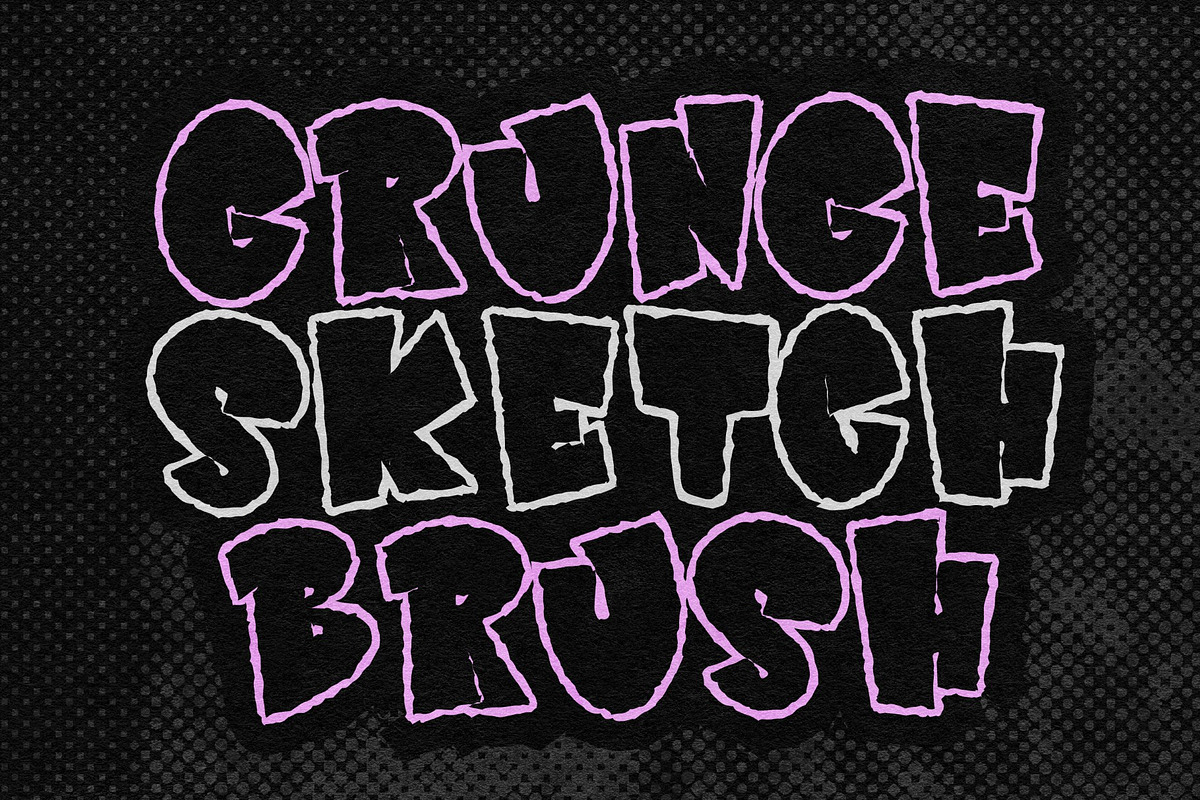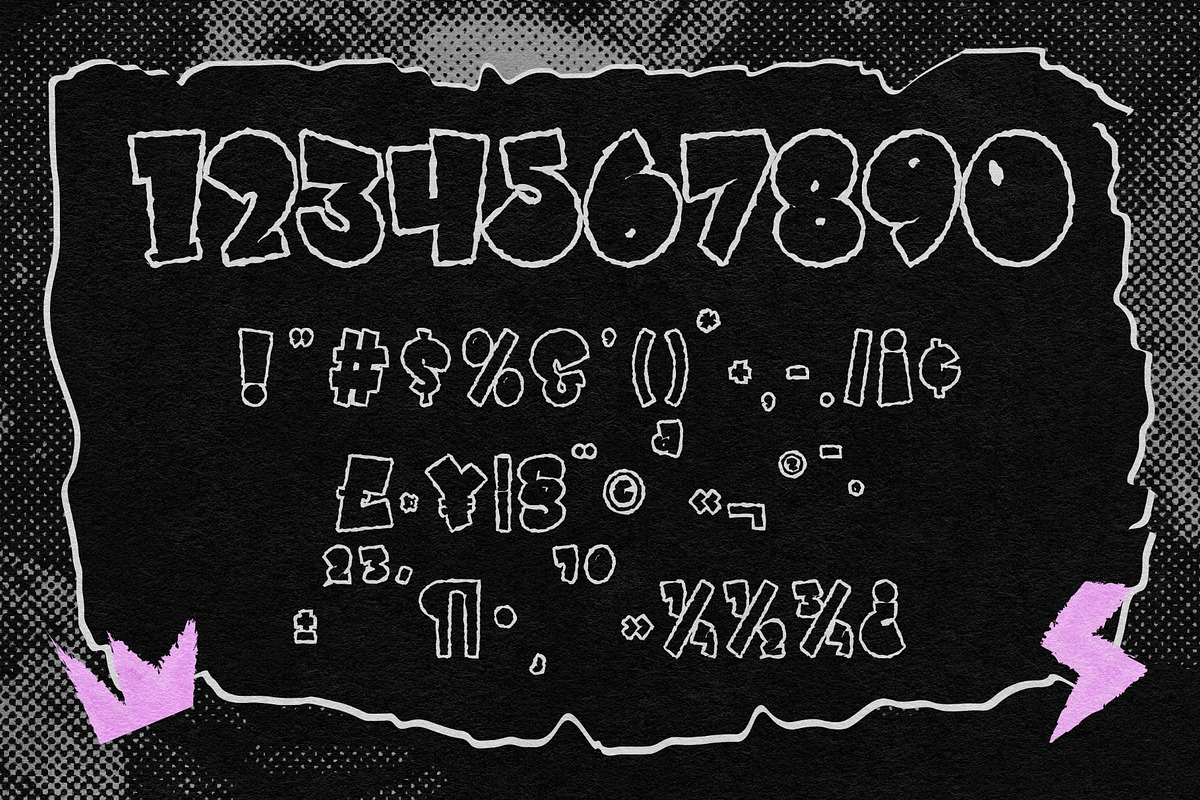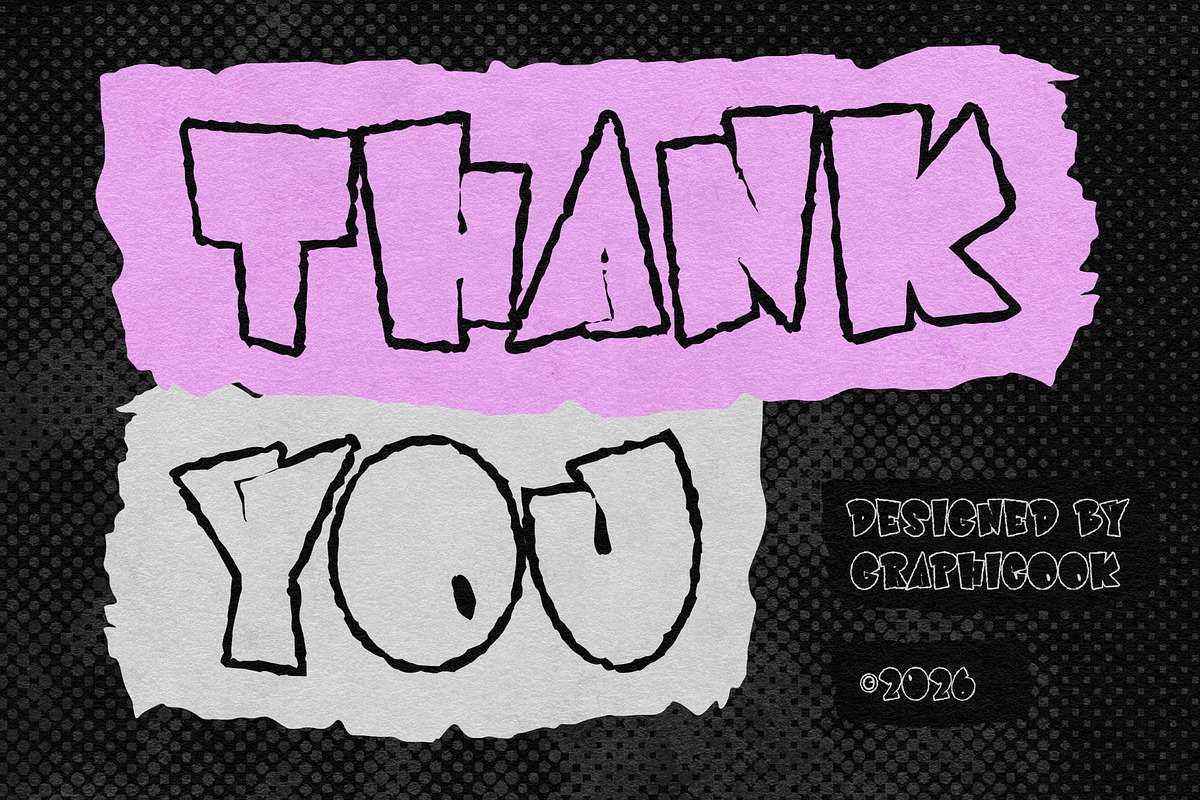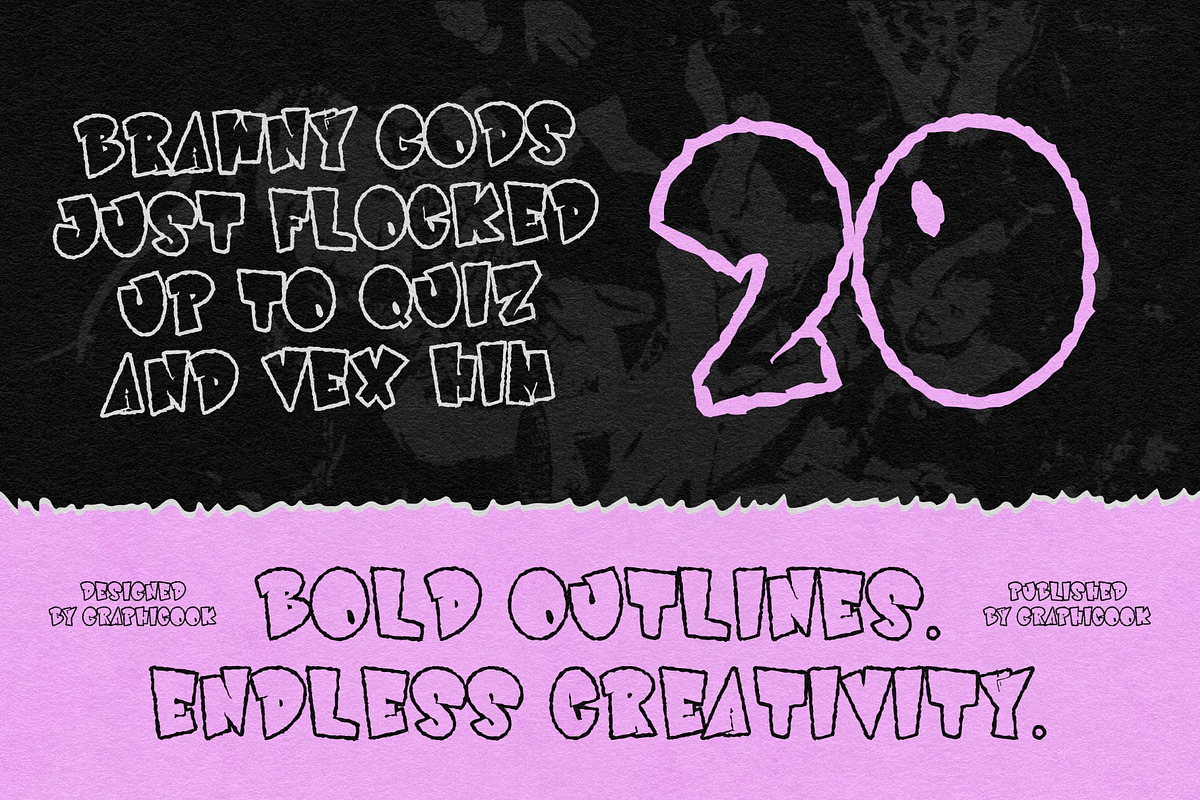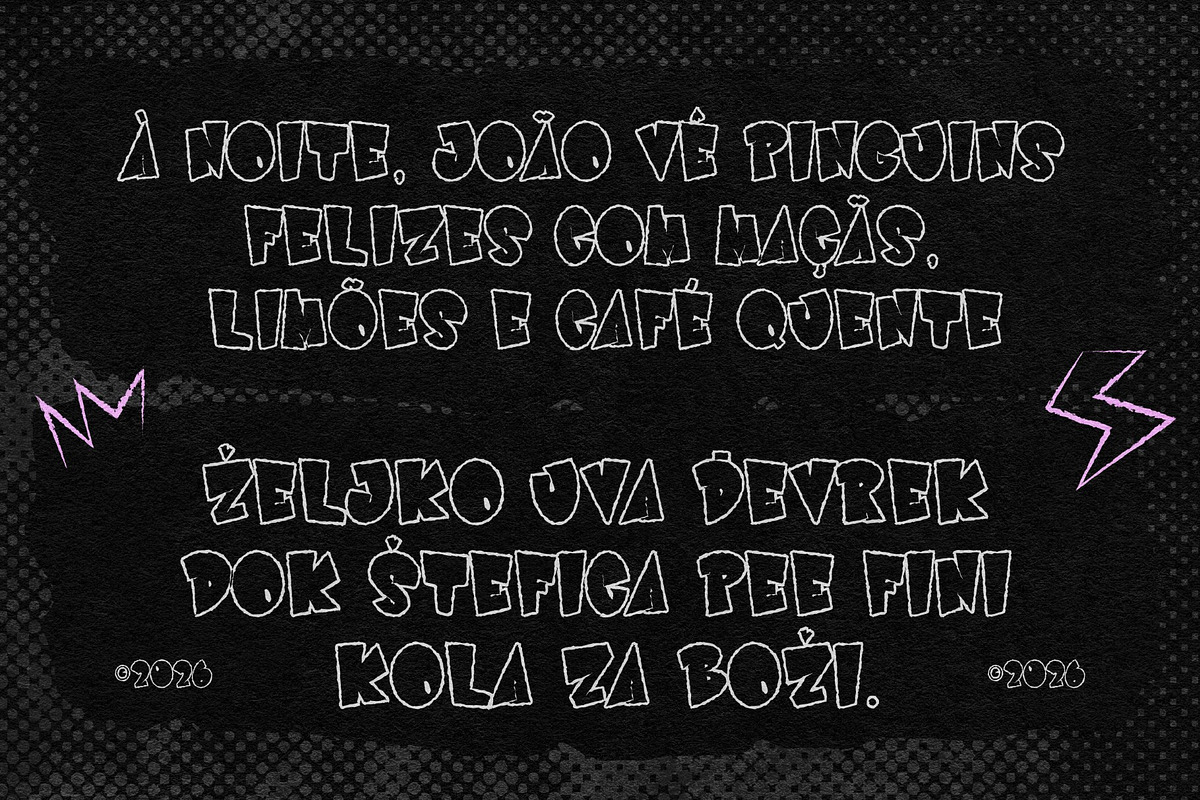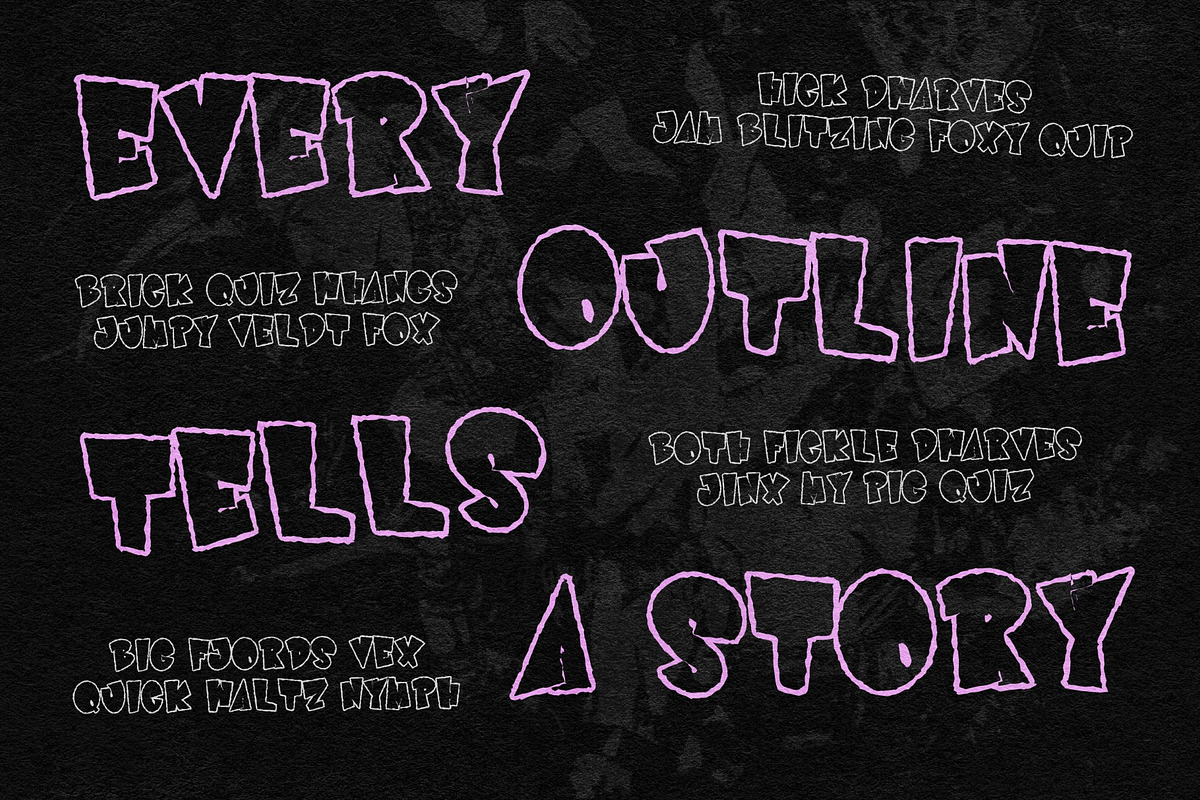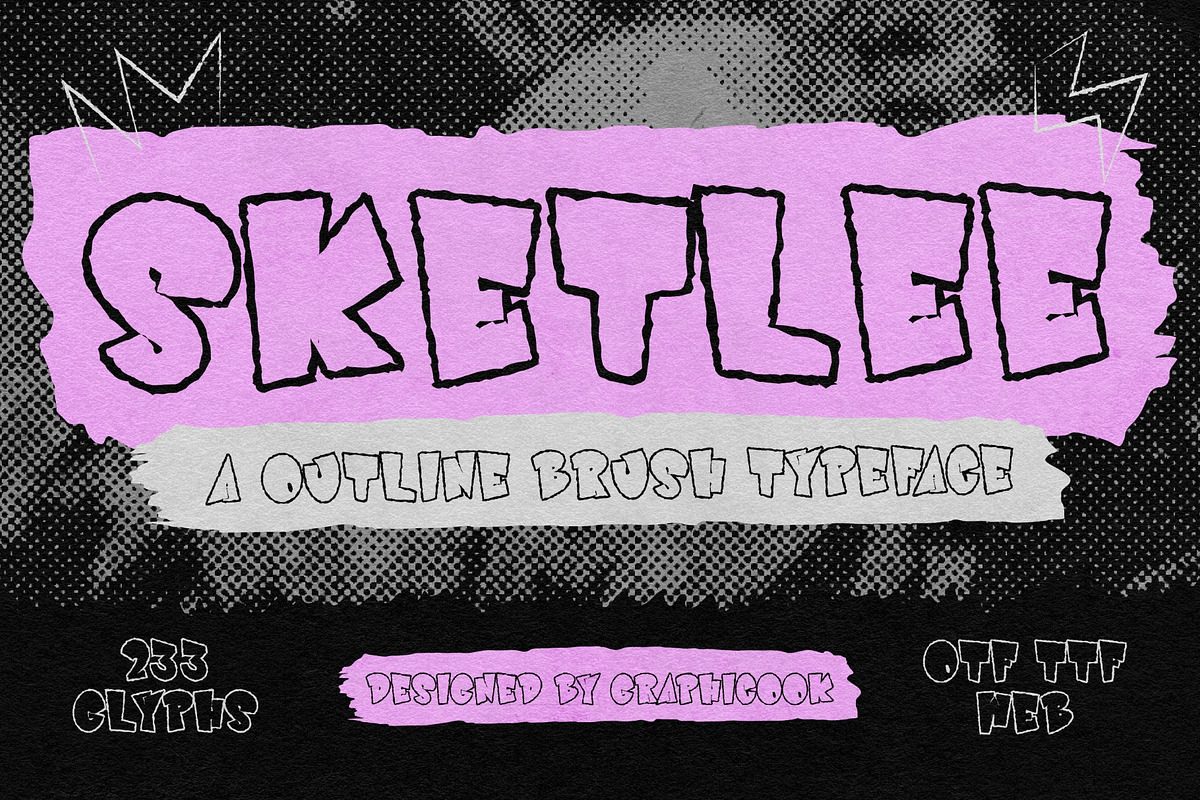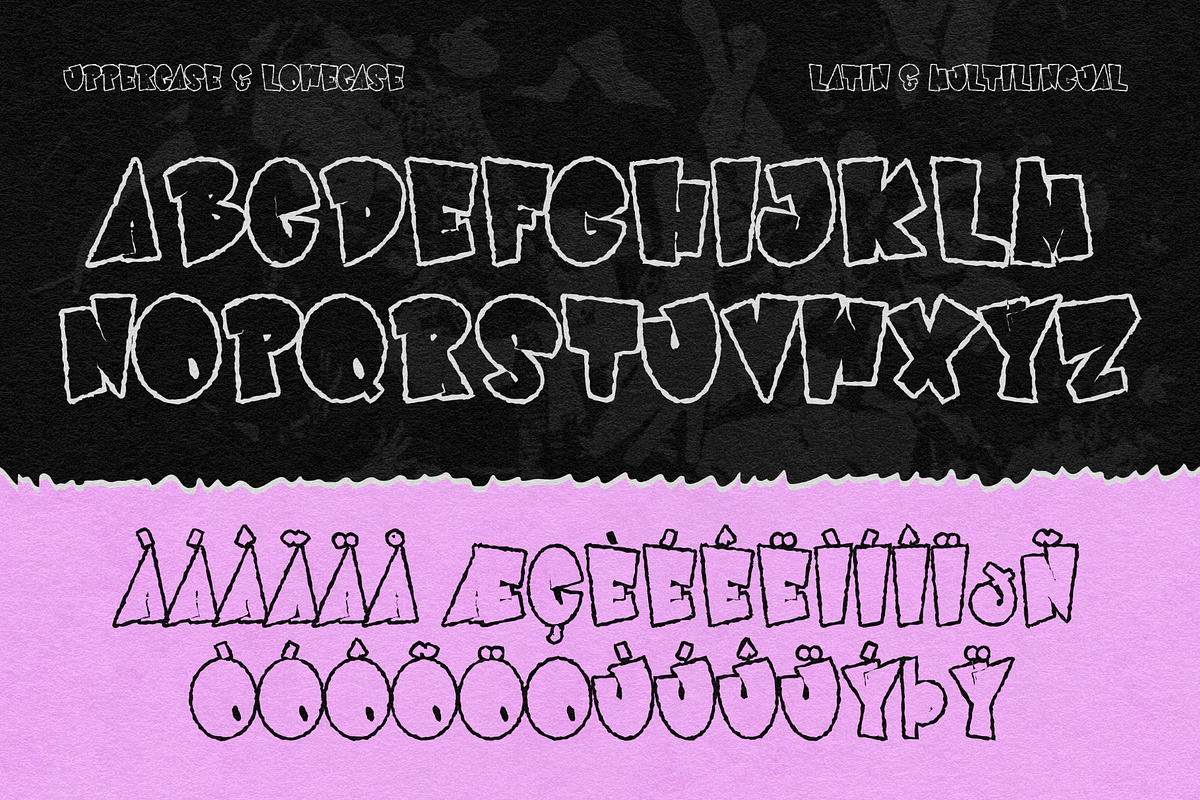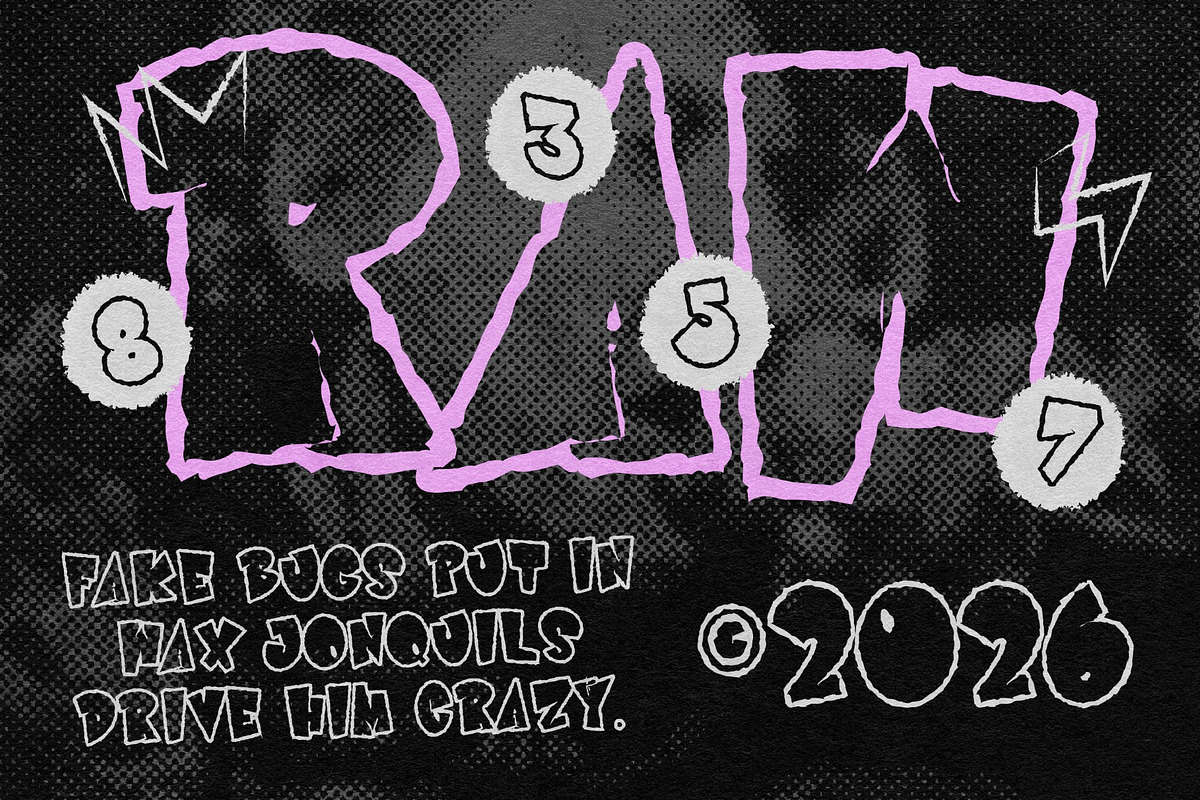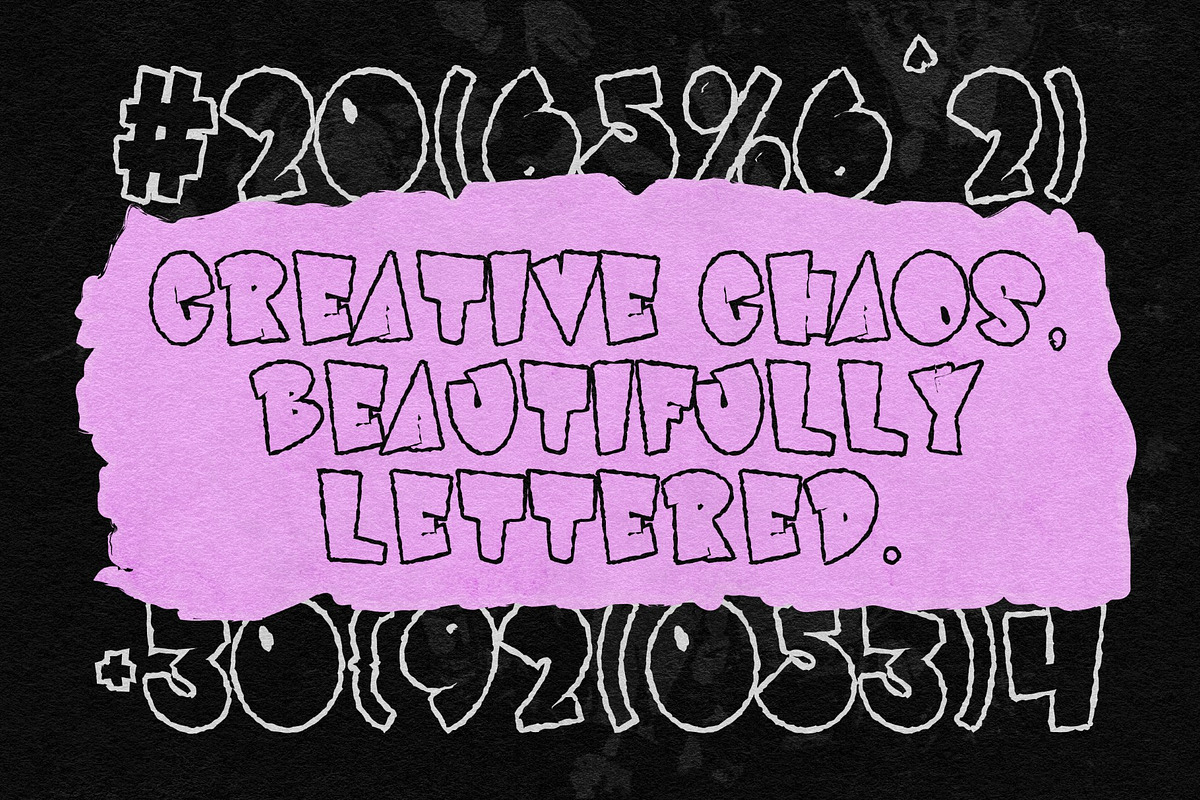
Sketlee
Sketlee is a bold and playful hand-drawn display typeface with a rough, sketchy character and expressive irregular shapes. Its thick outlined letterforms create a fun handmade look, perfect for designs that need a rebellious, energetic, and creative personality.
It is perfect for headlines, logotypes, magazines, packaging, quotes, movies, games, cover albums, book covers, and flyers, it's a perfect solution for creating eye-catching designs that stand out in any context.